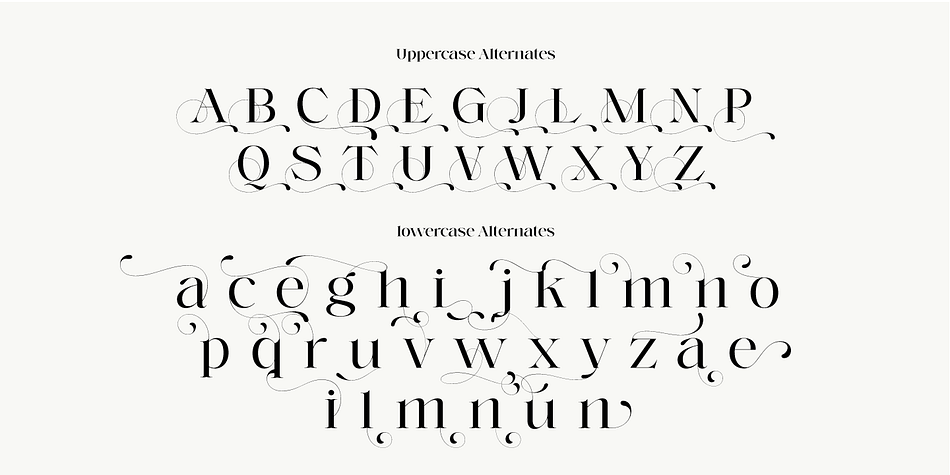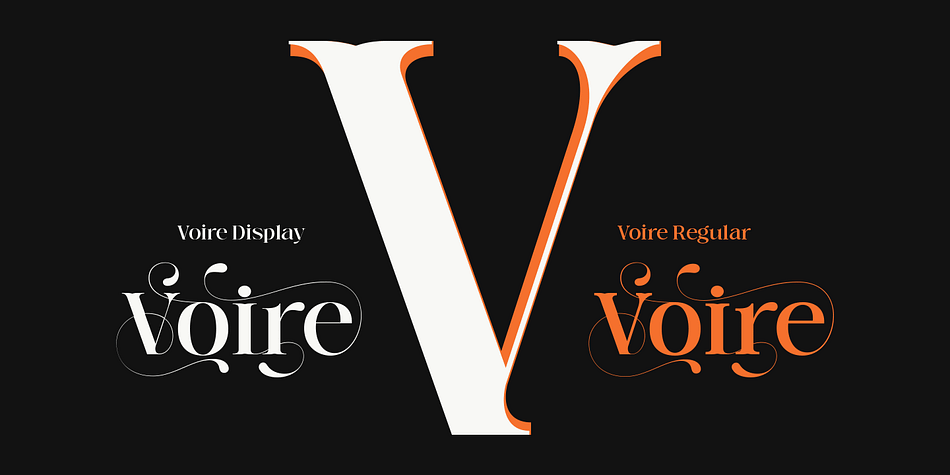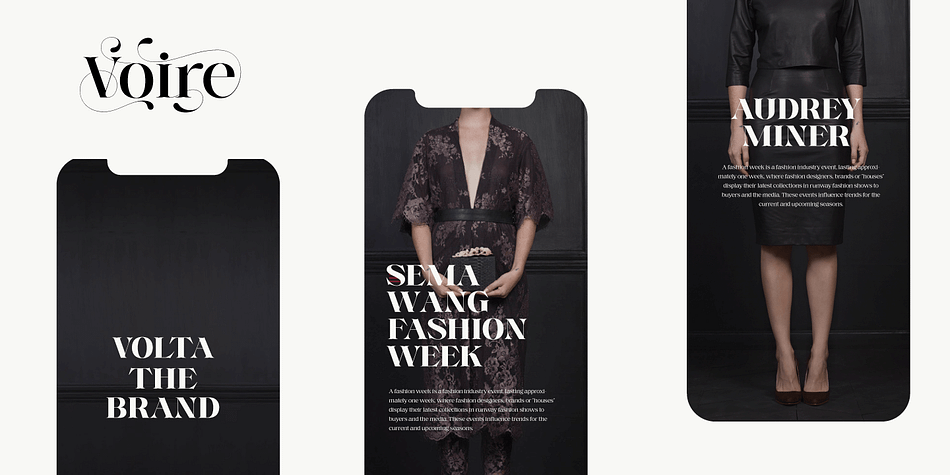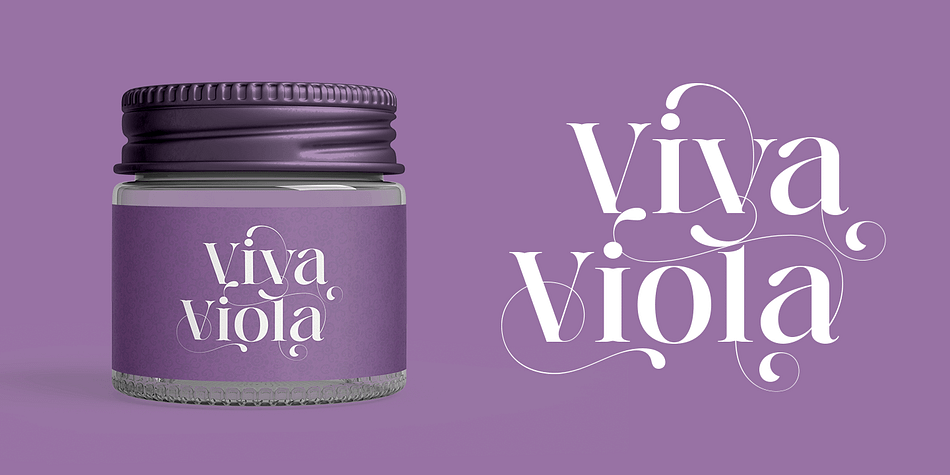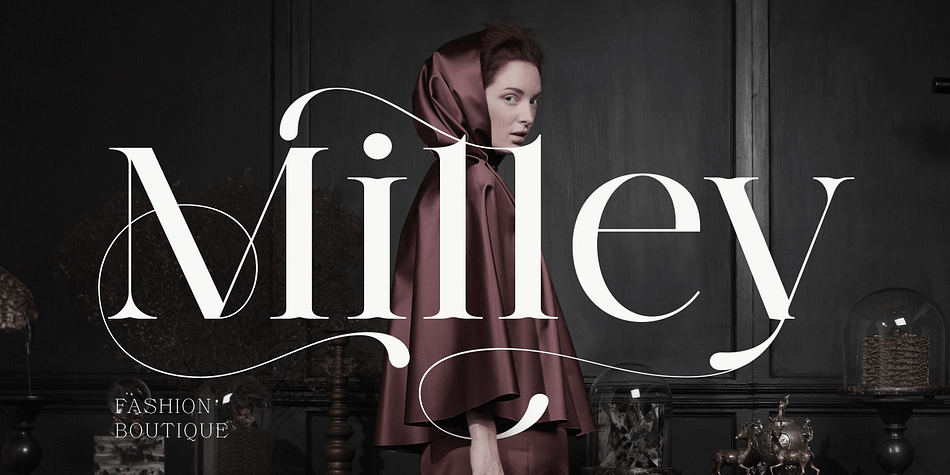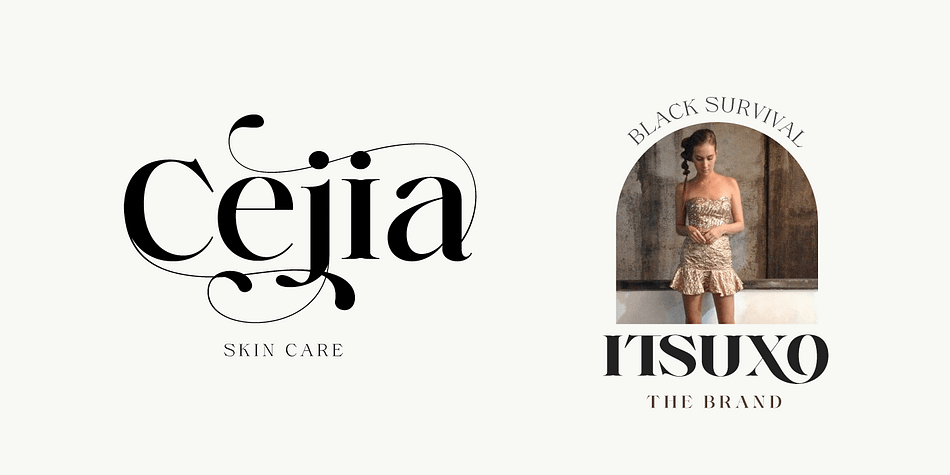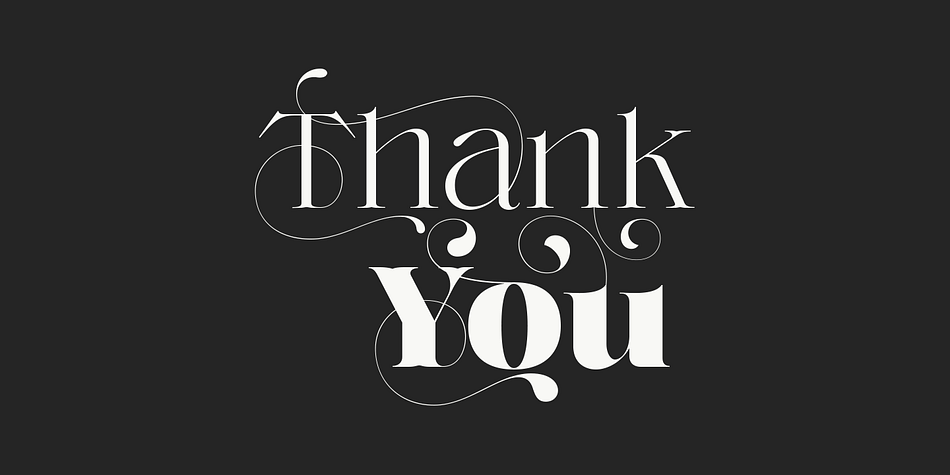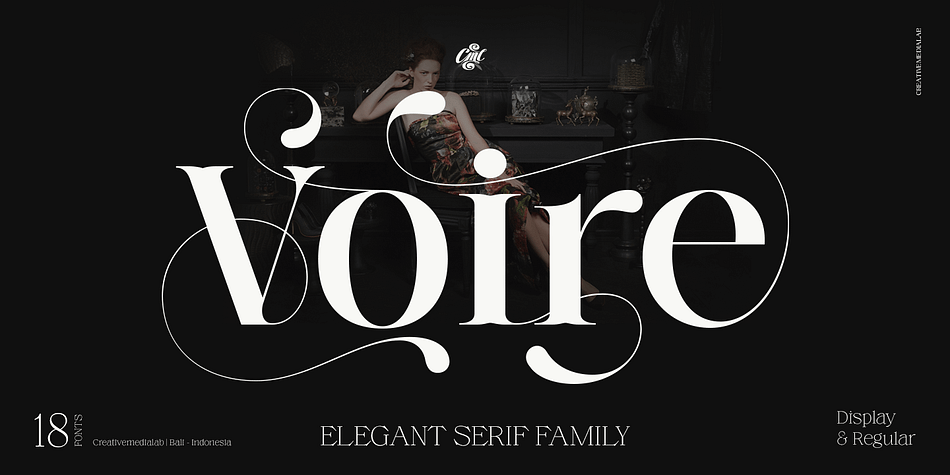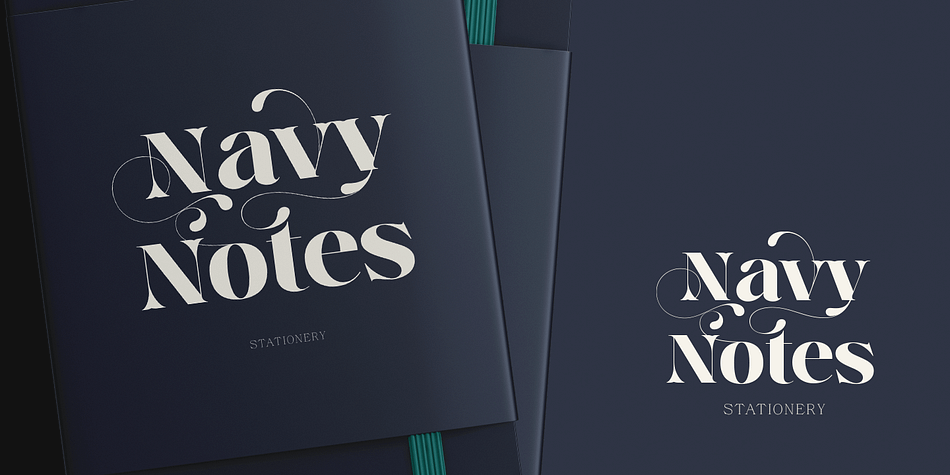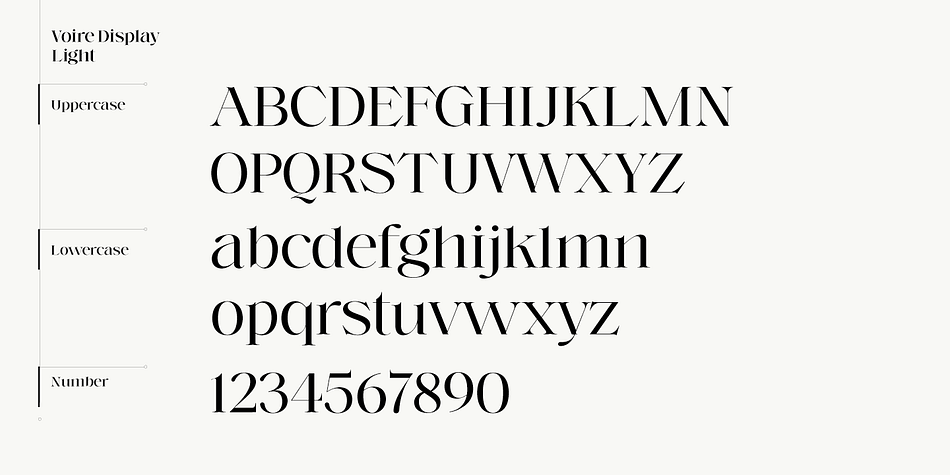
Voire is a display serif and serif font family. This typeface has eighteen styles and was published by Creative Media Lab.
Introducing Voire is an Elegant stylish and playful modern serif family.
Voire comes with two versions display and Regular, and it has 9 weights from thin to Black with tons of alternates and ligatures
This modern pretty serif family is perfect for all sorts of elegant designs like wedding invitations, but can also work great for logo, branding, website font and headers, or product labels. It’s easy to read and the alternates are visually interesting